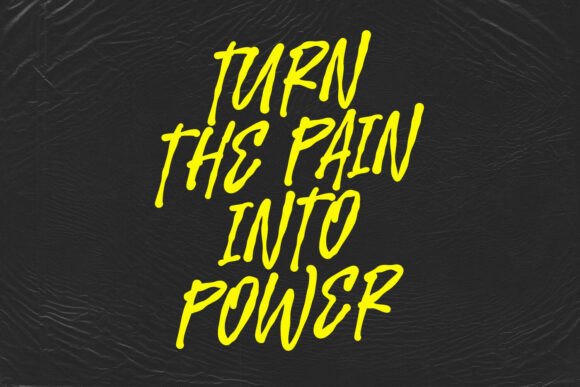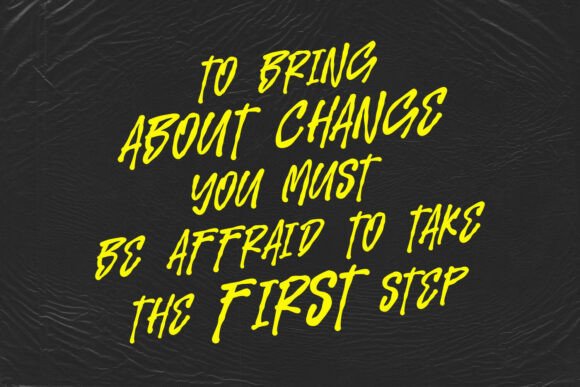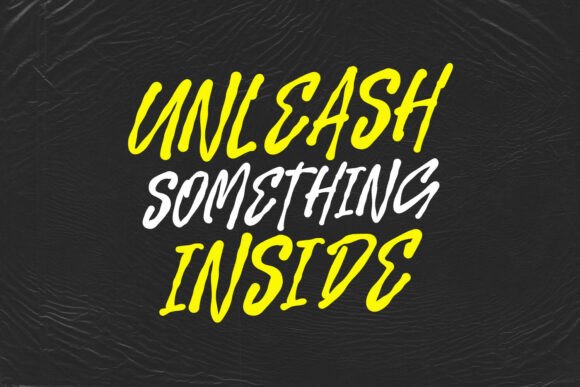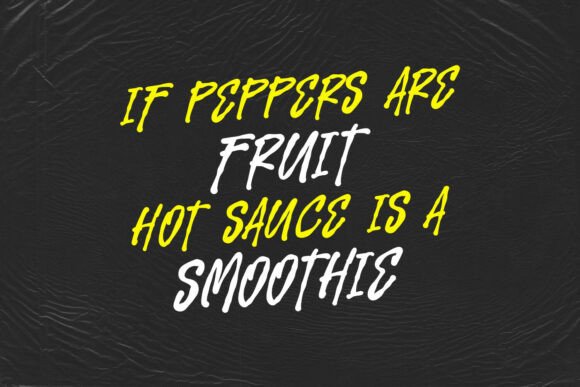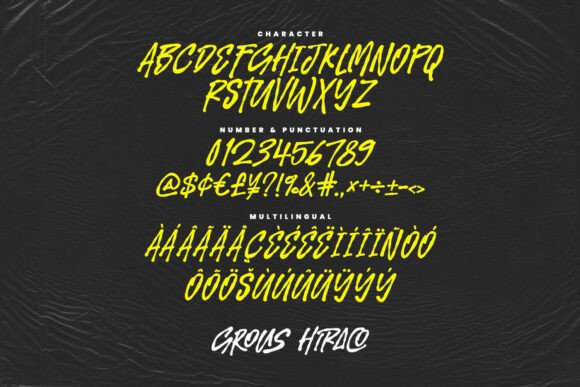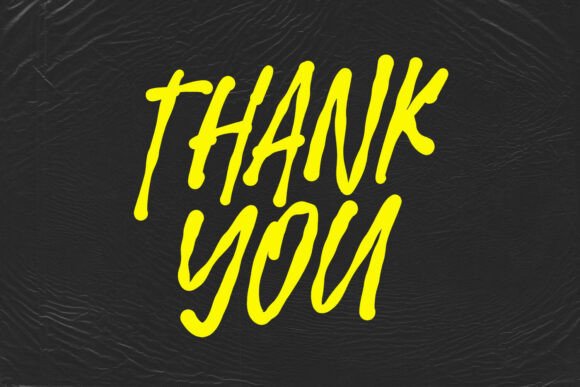
Unleash the Power of Grous Hiraco Font: The Ultimate Display Brush Font
Are you looking for a font that can add a bold and dynamic touch to your designs? Look no further than Grous Hiraco, a fierce and captivating Display Brush Font that’s perfect for making a statement. Inspired by hand-painted signs and high-impact street art, Grous Hiraco is designed to grab attention and leave a lasting impression.
The Inspiration Behind Grous Hiraco
Grous Hiraco is inspired by the raw energy and edginess of hand-painted signs and street art. The font’s creator aimed to capture the essence of high-impact visuals that command attention and evoke emotions. The result is a font that’s perfect for designers and crafters who want to add a bold and dynamic touch to their work.
Key Features of Grous Hiraco
Grous Hiraco boasts several key features that make it an excellent choice for designers and crafters. Some of its notable features include:
- Bold brush style: Grous Hiraco features authentic, thick brush strokes that give it a genuine, handwritten feel.
- Dynamic flow: The font has a natural, fast-paced, and energetic handwritten feel that’s perfect for conveying messages of power, motivation, and fun.
- Multilingual support: Grous Hiraco includes accented characters, making it suitable for global reach and multilingual projects.
Perfect Use Cases for Grous Hiraco
Grous Hiraco is an incredibly versatile font that can be used in a variety of design projects. Here are some perfect use cases for this amazing font:
- Branding and logo design: Grous Hiraco is ideal for energetic brands and startups looking to make a bold statement.
- Advertising and promotions: The font is perfect for headlines, banners, and social media promotions that require a high-impact visual.
- Media and entertainment: Grous Hiraco is suitable for album covers, movie posters, and thumbnails that need to grab attention.
- Motivational content: The font is great for quotes, inspiring graphics, and motivational content that requires a bold and dynamic touch.
Why Choose Grous Hiraco?
With so many fonts available, why choose Grous Hiraco? Here are a few compelling reasons:
- Instant impact: Grous Hiraco delivers an instant shot of adrenaline, making it perfect for designs that require a bold and dynamic touch.
- Authentic feel: The font’s authentic, thick brush strokes give it a genuine, handwritten feel that’s hard to replicate with other fonts.
- Versatility: Grous Hiraco is suitable for a wide range of design projects, from branding and advertising to media and entertainment.
In conclusion, Grous Hiraco is an exceptional Display Brush Font that’s perfect for designers and crafters looking to add a bold and dynamic touch to their work. With its authentic, thick brush strokes, dynamic flow, and multilingual support, this font is sure to make a lasting impression. Whether you’re designing for a sports brand, a music album, or motivational content, Grous Hiraco is an excellent choice. So why wait? Unleash the raw energy and dynamic boldness of Grous Hiraco and take your designs to the next level!